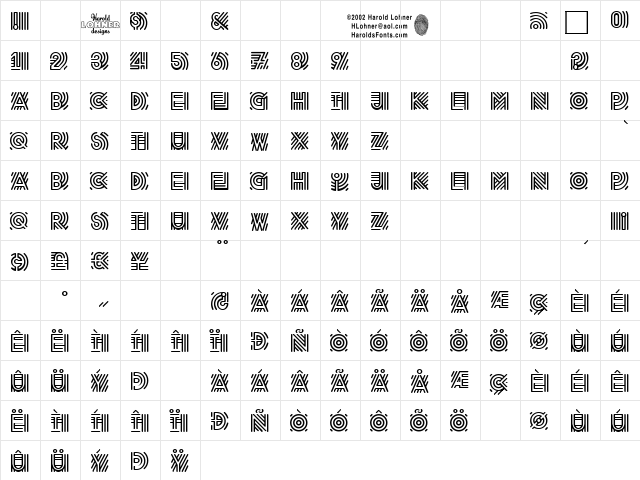
Radio Regular
Design Context for Radio Typeface
Radio is a composed and adaptable typeface that performs quietly and consistently across a wide range of design contexts.